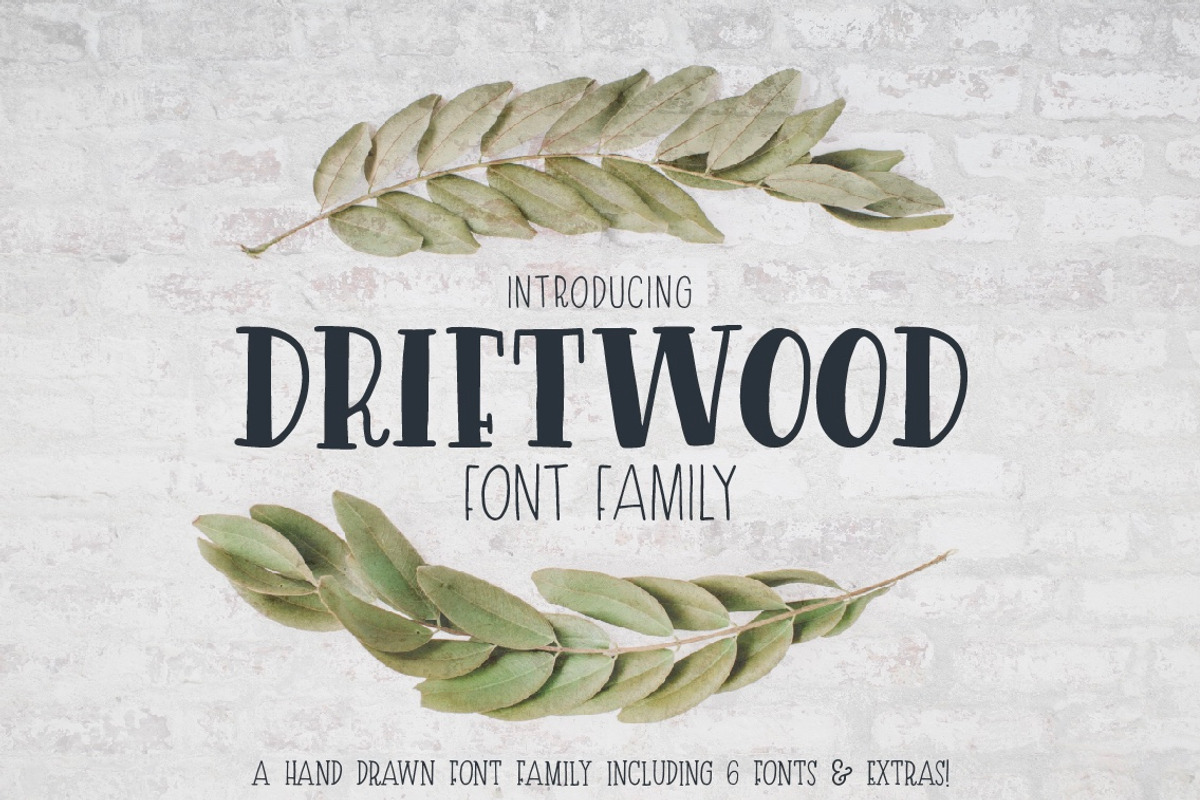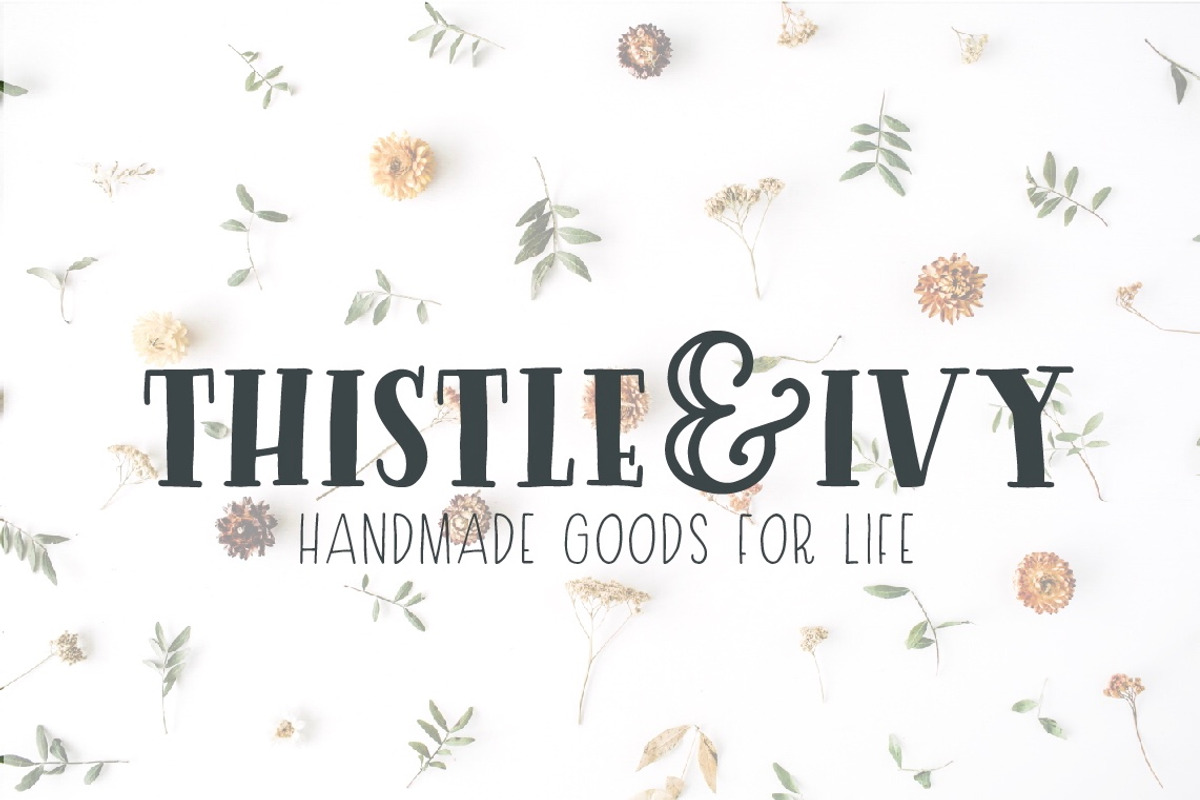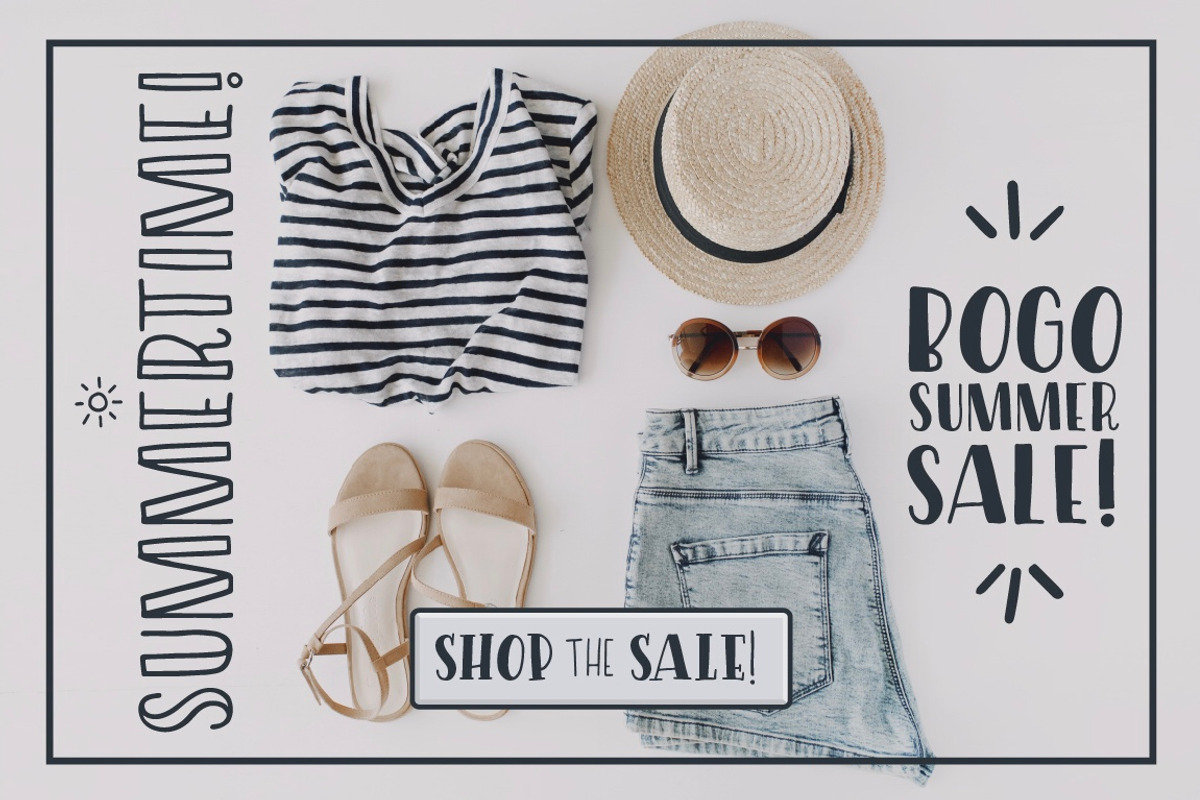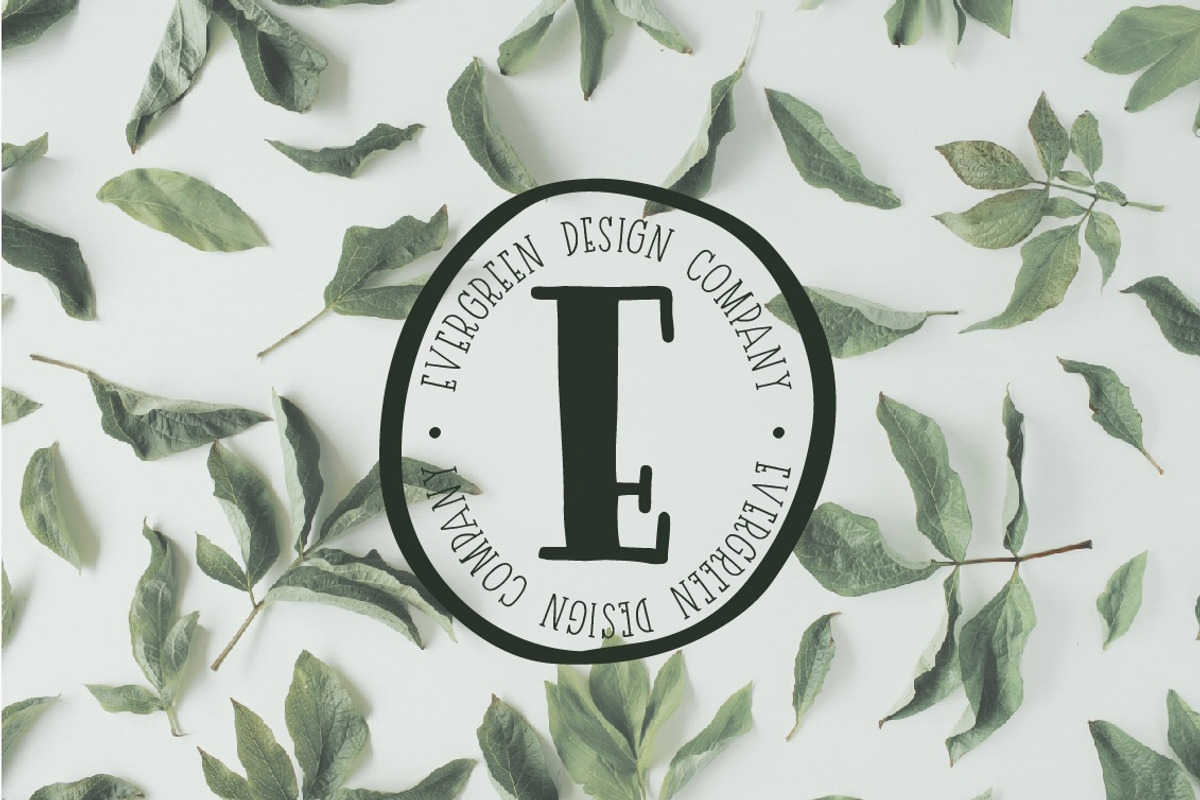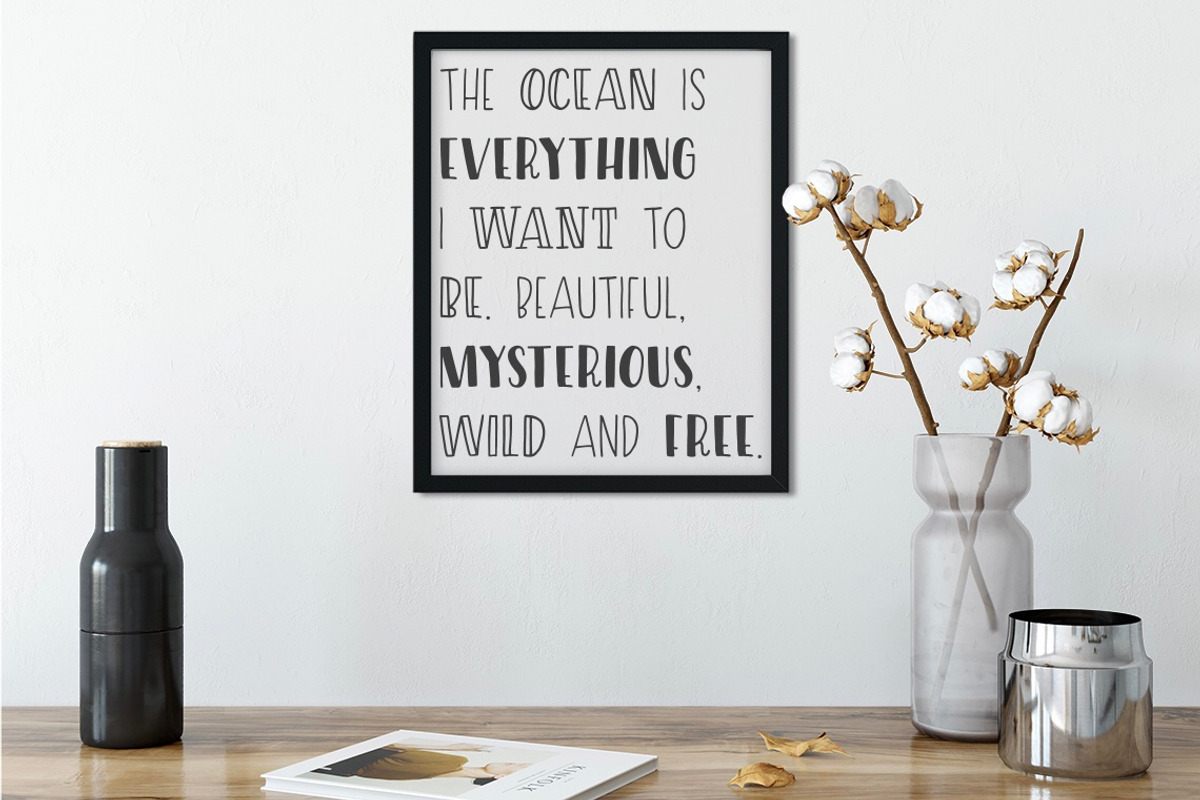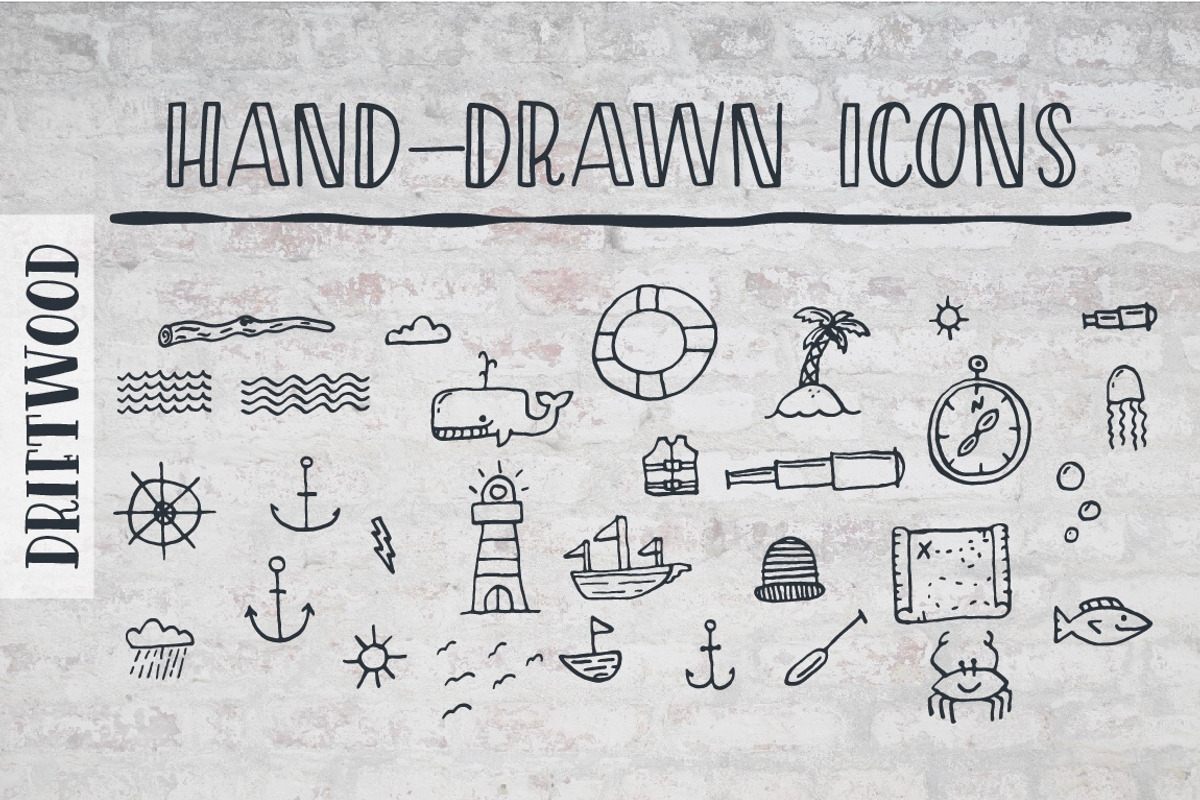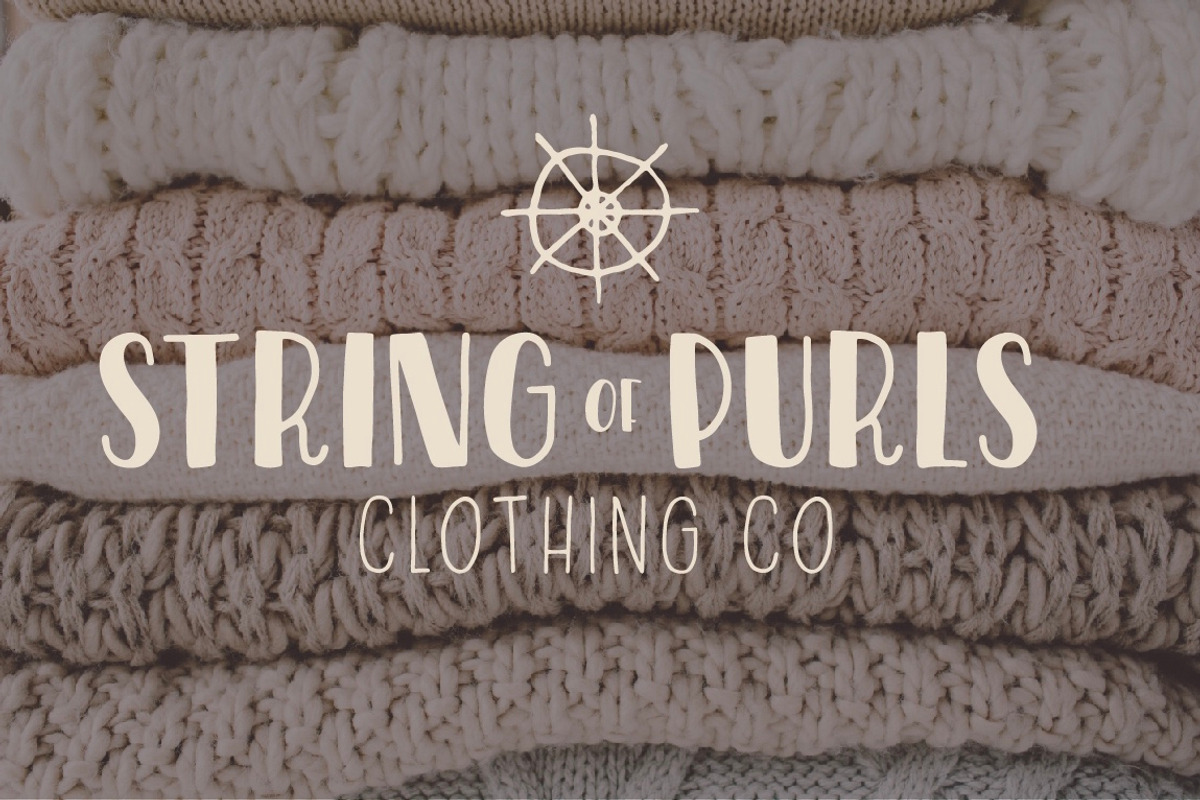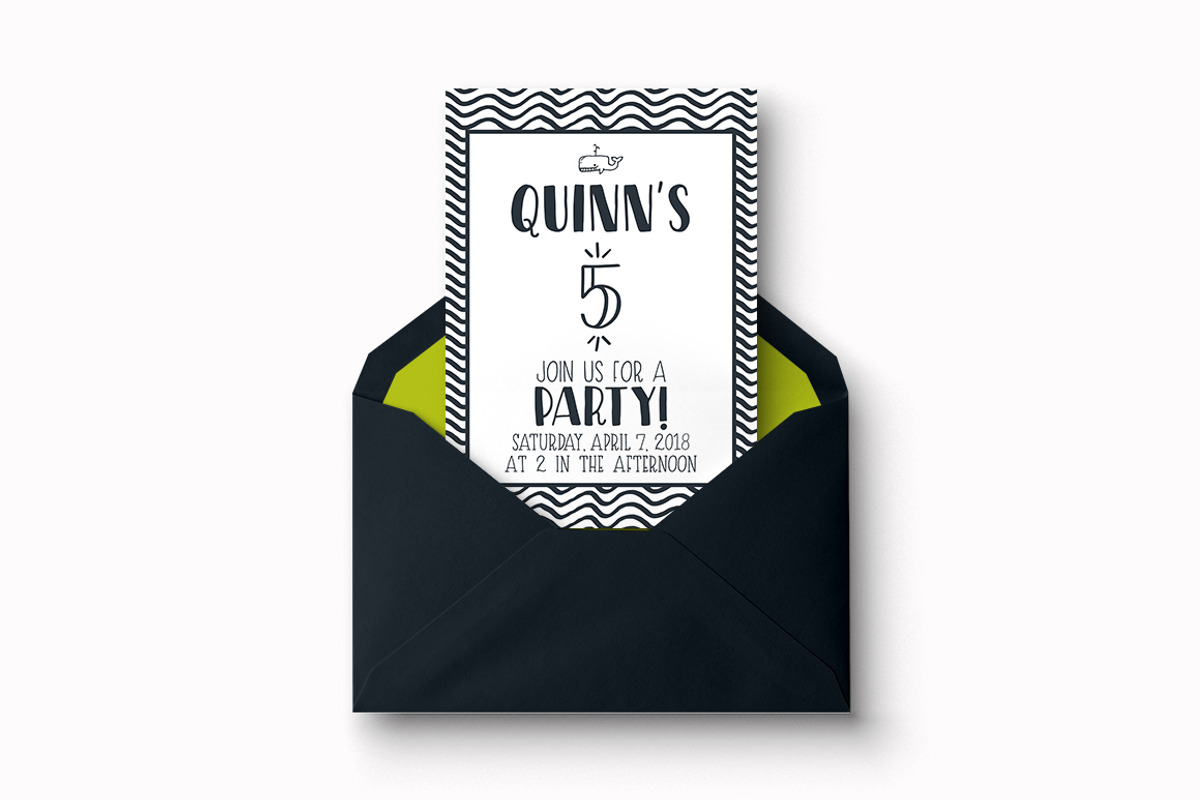
Driftwood Font Family
Introducing Driftwood! Driftwood is a hand-drawn font family including 6 fonts and a set of hand-drawn icons! Driftwood makes creating cohesive designs fun and easy for any project, including blog graphics, products, branding, stationery, and more.
- Driftwood includes 6 font files: Monoline Sans, Monoline Serif, Outline Sans, Outline Serif, Solid Sans, & Solid Serif.
- Driftwood Monoline Sans
- Driftwood Monoline Serif
- Driftwood Outline Sans
- Driftwood Outline Serif
- Driftwood Solid Sans
- Driftwood Solid Serif
Driftwood Font Family by Rountree Design Co. fits naturally into Branding, posters, packaging, typography.